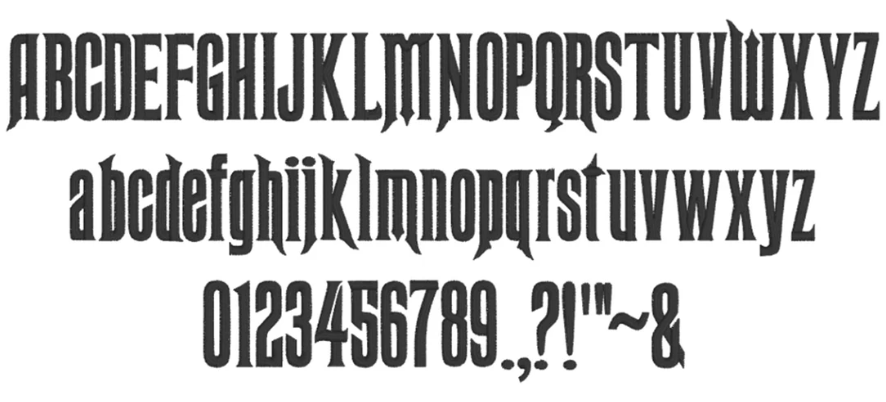
The Disney Haunted Mansion Font is a peculiar, spooky typeface that captures the very spirit of Disney’s iconic attraction Haunted Mansion. From its vintage appeal to gothic taste, this font speaks out to every designer and Disney lover. The unique style makes it an ideal choice for Halloween themed projects and spooky graphics. Let the Disney incorporate magic in social media posts, invites and posters with their creepy yet beautiful font.
The Haunted Mansion attraction, which is featured prominently at Disney parks, incorporates elements of mystery blended with lighter ghostly themes. The font used for its branding perfectly encapsulates this eeriness, which makes it a sought-after choice for anyone wishing to add a spooky touch to a project.
What is Disney Haunted Mansion Font?
The Disney Haunted Mansion Font stems from the eery yet playful vibe of the Haunted Mansion attraction. Although Disney utilizes a proprietary font for its branding, a handful of fans have created lookalike fonts which are available for individual and commercial use.
These fan created fonts include intricate and vintage gothic details allowing them to capture the essence of the original Disney font.
Some popular alternatives include:
- Haunted Mansion Font
- Gothic Mansion Typeface
- Spooky Disney Font
These options provide designers with the tools to recreate the eerie Disney magic in their own projects.
Key Features of Disney Haunted Mansion Font
The Disney Haunted Mansion Font stands out due to its:
- Intricate Lettering: Whimsical details and cuts that bring in an old spooky feel.
- Gothic Influences: Uncompromising serifs, long strokes, and complex surfaces.
- Bland Shapes: Diffused angles and sharp angles, giving it an intimidating shape.
- Old Type: Both classical and contemporary frightening designs are appropriate for this never ending look.
- Clearly Aligned: The fonts integrate good legibility and exquisite decoration which makes the fonts applicable for headlines and body texts.
These features make it a versatile typeface for various spooky and Halloween-themed projects.
Applications of Disney Haunted Mansion Font
The Disney Haunted Mansion Font is widely used in both personal and professional projects. Popular applications include:
- Halloween Invitations and Party Decor: Set the perfect spooky tone for Halloween events.
- Posters, Flyers, and Event Promotions: Eye-catching designs for haunted houses, fall festivals, or spooky events.
- Merchandise and Apparel Design: T-shirts, mugs, and bags with haunted mansion-themed graphics.
- Digital Content: YouTube thumbnails, social media posts, and Halloween-themed websites.
Real-World Examples
- Halloween Party Flyers featuring the font in bold headlines.
- YouTube Thumbnails for spooky content creators.
- Merchandise Designs with haunted mansion quotes and motifs.
Conclusion: Disney Haunted Mansion Font
The Disney Haunted Mansion Font is an enchanting, versatile, and spooky typeface appropriate for any design project incorporating the magic of Disney. Its decorative features, along with its gothic charm, makes it very suitable for Halloween programs, frightening promotions, and themed merchandise.